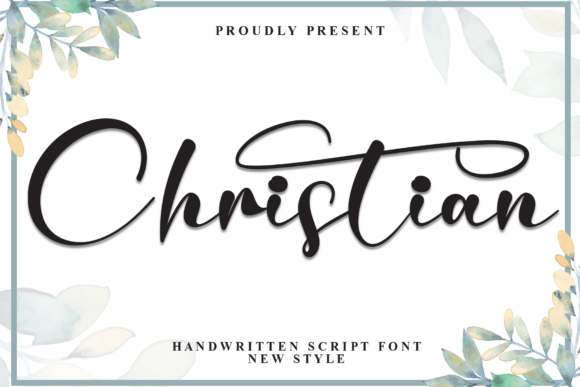
Christian Font: Elevate Your Design with Elegant Handwriting
When it comes to creating visually stunning designs, the right font can make all the difference. For those seeking a touch of elegance and personality, Christian font is an excellent choice. This beautiful script font mimics natural handwriting, offering a unique and artistic flair to various design projects. In this article, we’ll explore the features, benefits, and uses of Christian font, helping you understand why it’s a popular choice among designers.
What is Christian Font?
Christian font is a script typeface that closely resembles natural handwriting. Its flowing, smooth letters exude an air of elegance and sophistication, making it perfect for designs that require a personal touch. The font’s organic feel sets it apart from more traditional typefaces, allowing designers to add a human element to their work.
Key Features of Christian Font
- Natural Handwriting Style: Christian font boasts a handwriting style that feels genuine and spontaneous.
- Elegant and Smooth Letters: The font features flowing letters that are smooth and refined, giving designs a polished look.
- Versatile: Suitable for a wide range of design projects, from invitations and logos to branding and advertising materials.
- Artistic and Personal Touch: Adds a unique, artistic flair to designs, making them stand out.
Benefits of Using Christian Font
There are several reasons why Christian font has become a favorite among designers. Its ability to add a personal and artistic touch to designs is unparalleled. Here are some benefits of incorporating Christian font into your projects:
Why Choose Christian Font?
- Emotional Connection: The handwriting style of Christian font creates an emotional connection with the audience, making designs feel more approachable and personal.
- Versatility: This font can be used across various design projects, from formal invitations to modern logos, showcasing its adaptability.
- Elegance: The smooth, flowing letters lend an air of elegance to designs, making them suitable for high-end branding and luxury products.
- Easy to Read: Despite its artistic nature, Christian font remains highly legible, ensuring that messages are communicated clearly.
Uses of Christian Font
Christian font’s versatility makes it suitable for a variety of design applications. Here are some popular uses of this beautiful script font:
Popular Applications of Christian Font
- Invitations and Event Materials: Adds a personal and elegant touch to wedding invitations, event flyers, and party announcements.
- Logos and Branding: Ideal for creating unique and memorable logos that reflect a brand’s personality and values.
- Advertising and Marketing: Enhances advertising materials, such as brochures, posters, and social media graphics, with its artistic flair.
- Packaging Design: Elevates product packaging with a personal touch, making products stand out on store shelves.
Tips for Using Christian Font Effectively
To maximize the impact of Christian font in your designs, consider the following tips:
Design Best Practices
- Pair with Complementary Fonts: Combine Christian font with simpler typefaces to create visual contrast and hierarchy in your designs.
- Adjust Letter Spacing: Optimize letter spacing to enhance readability and ensure the text flows smoothly.
- Use for Headlines and Accents: Utilize Christian font for headlines and accent text to draw attention and add a personal touch.
- Consider Font Size: Ensure the font size is appropriate for the design context, making sure it’s readable across different devices and mediums.
Christian font offers a unique blend of elegance, personality, and versatility, making it an excellent choice for designers seeking to add a personal and artistic touch to their work. Its natural handwriting style, smooth letters, and adaptability across various design projects have made it a popular choice among designers. By understanding the features, benefits, and effective use of Christian font, you can elevate your designs and create visually stunning materials that resonate with your audience.
Embrace the Beauty of Christian Font
Whether you’re designing invitations, logos, or advertising materials, Christian font provides the perfect opportunity to infuse your work with a personal and artistic touch. Experiment with this beautiful script font and discover how it can transform your designs, making them more engaging, elegant, and memorable.